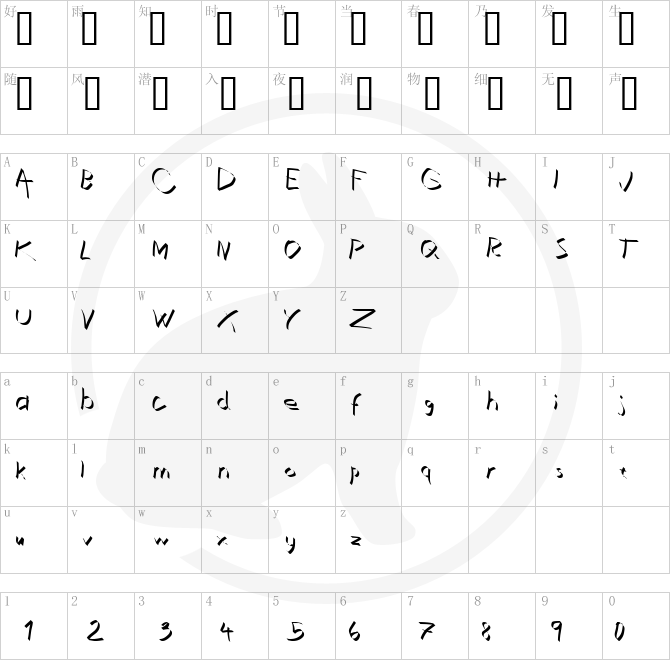
Xaligraphy-Thin.ttf is a very beautiful artistic font, Xaligraphy-Thin.ttf is widely used in the design and printing of various books and pictures,Xaligraphy-Thin.ttf has a strong visual impact,Xaligraphy-Thin.ttf is a commonly used font in newspapers, magazines and books, and is used in posters, e-commerce Poster design, store design, logo design, font design and other fields.Xaligraphy-Thin.